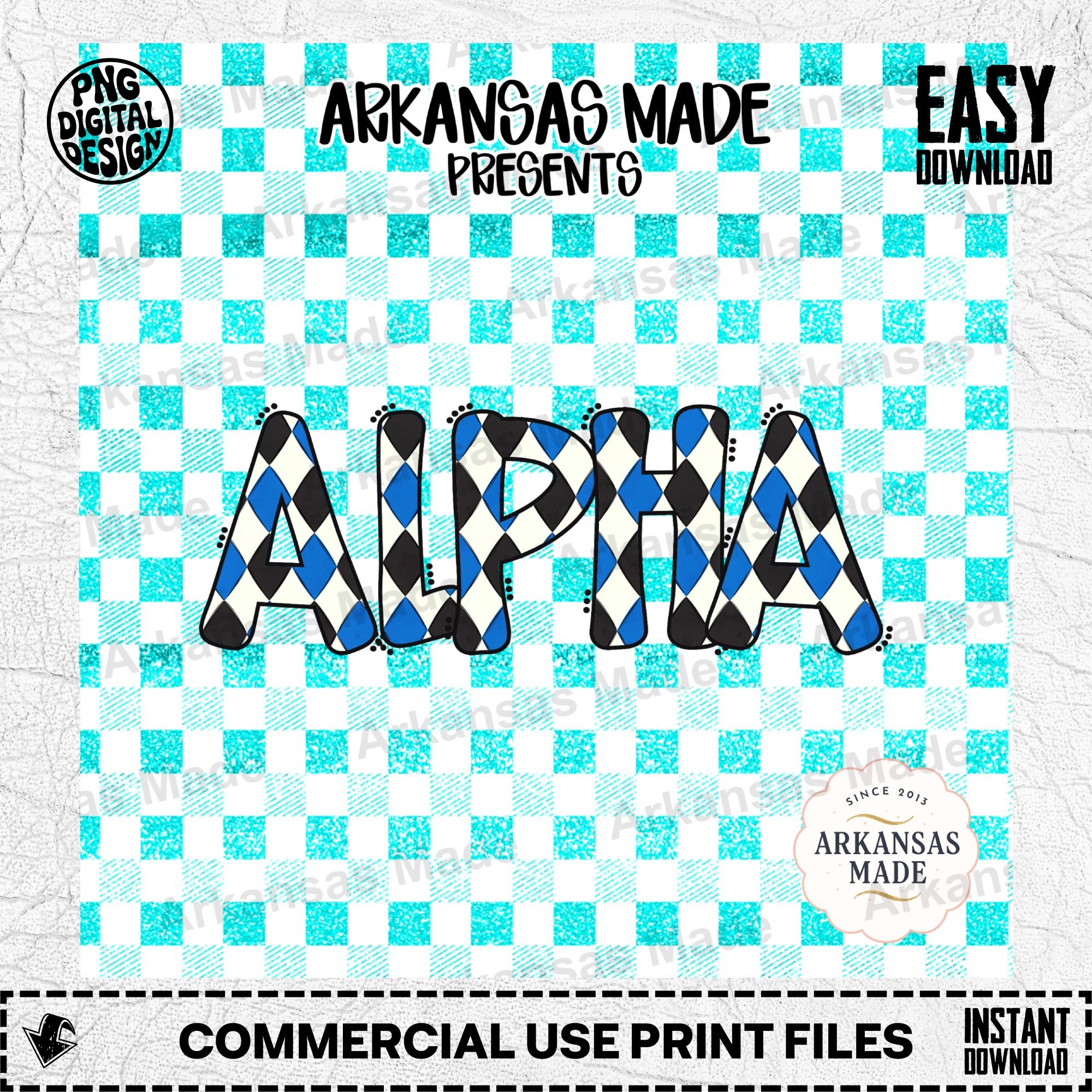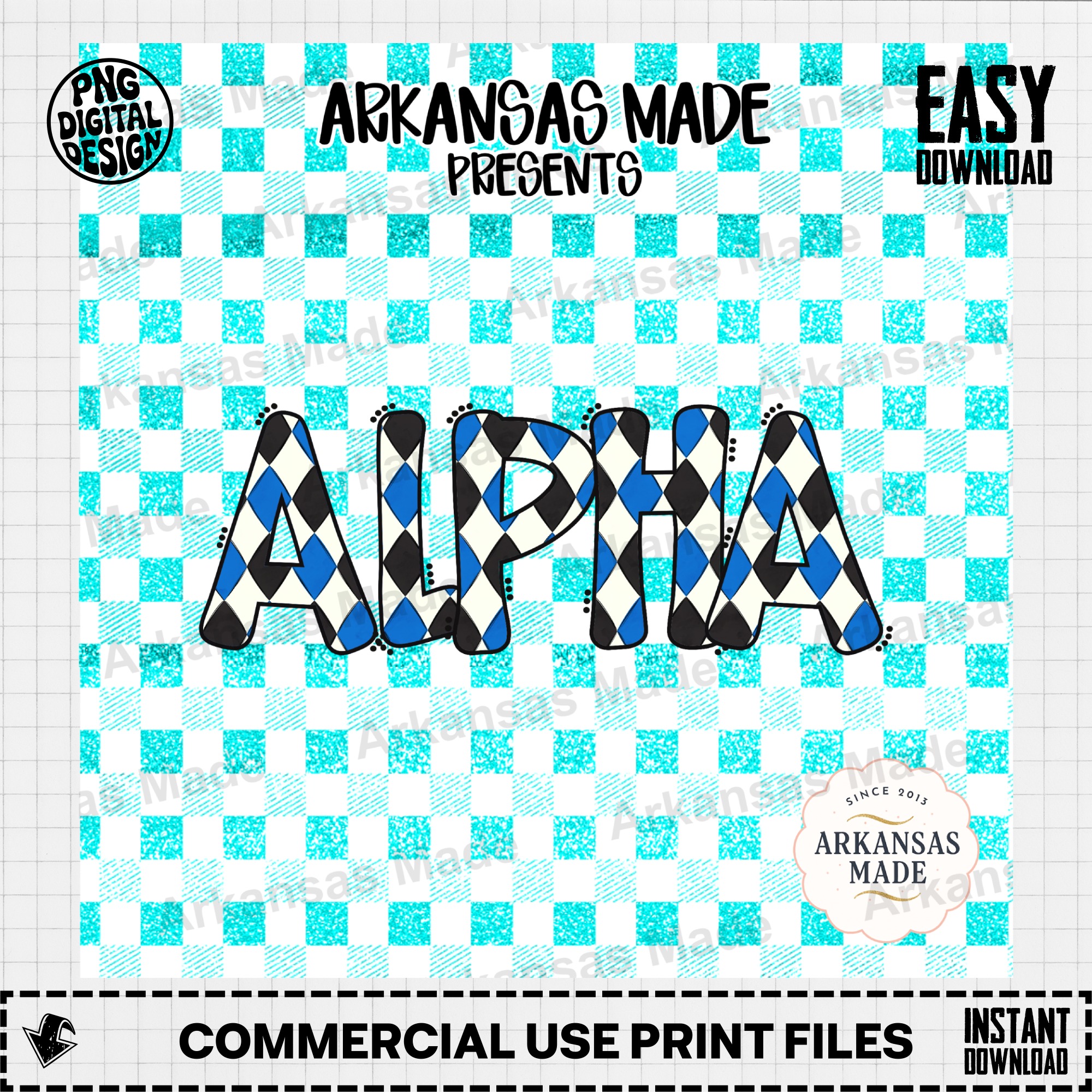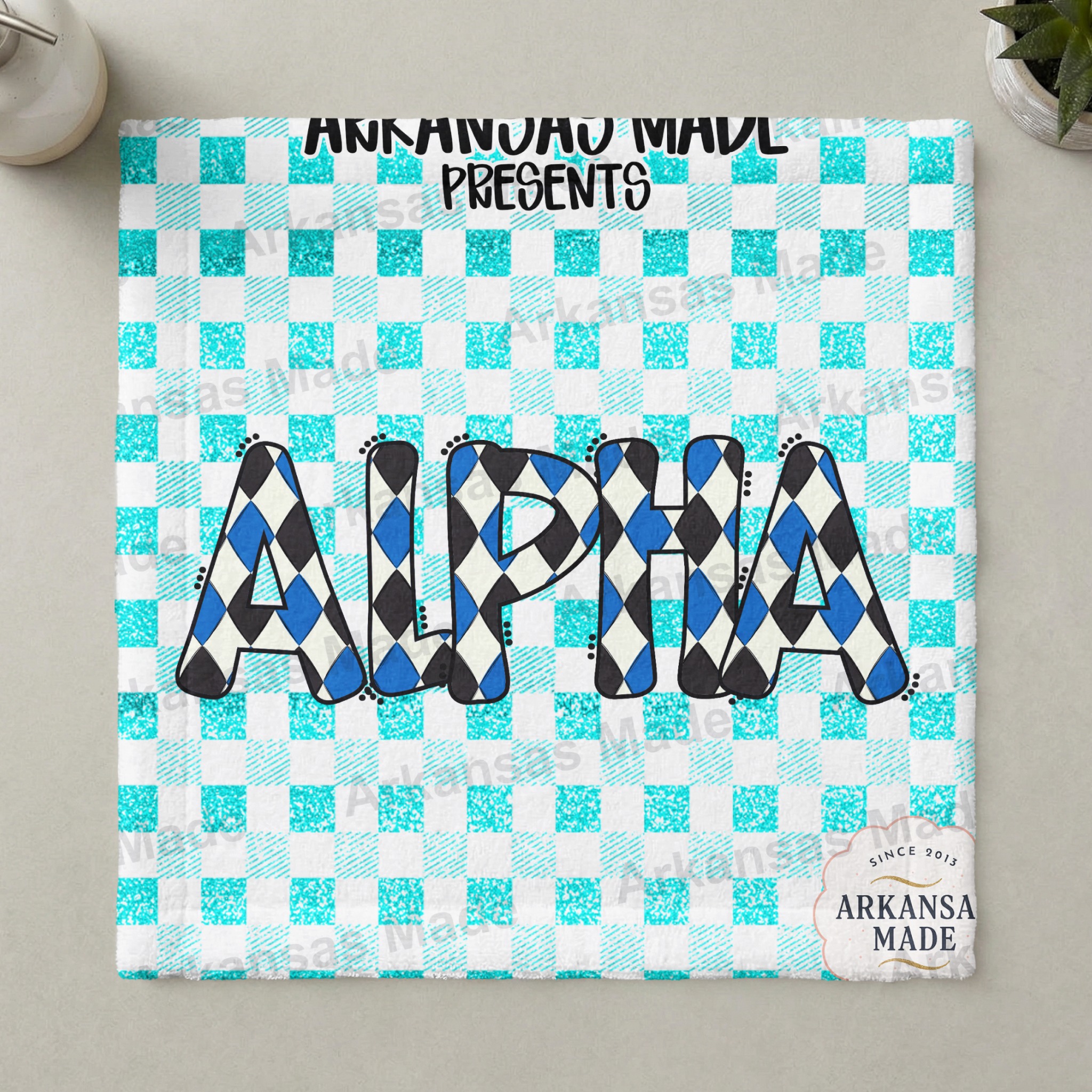
Elevate your projects with this vibrant Digital Download Alpha Set, featuring bold blue and black argyle letters on a faux glitter background. Perfect for Greek life, college crafts, and custom sublimation designs, this PNG collection offers instant download. Capture collegiate spirit or add a preppy touch to any design with these unique varsity-style letters. Ideal for sorority big/little gifts, personalized dorm decor, custom t-shirts, or creating impactful digital art. This versatile set brings a playful yet classic aesthetic to all your creative ventures.